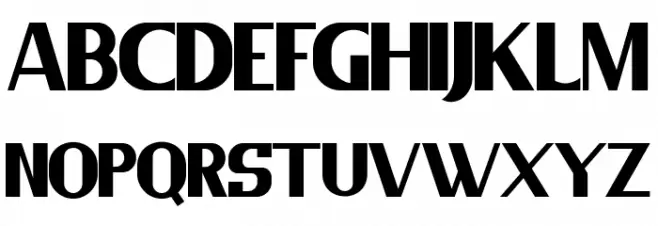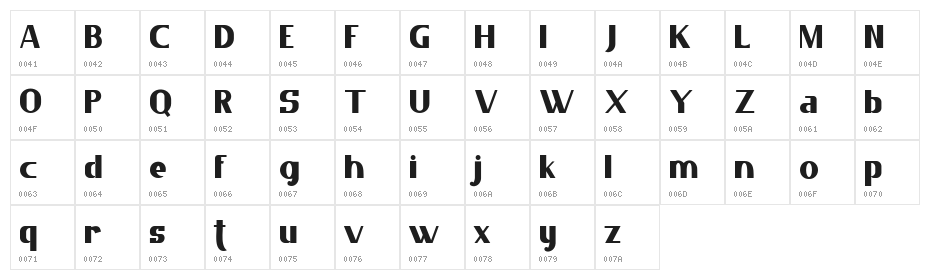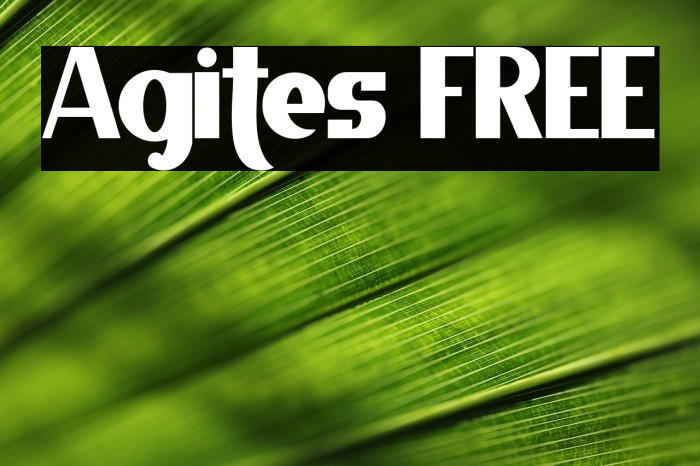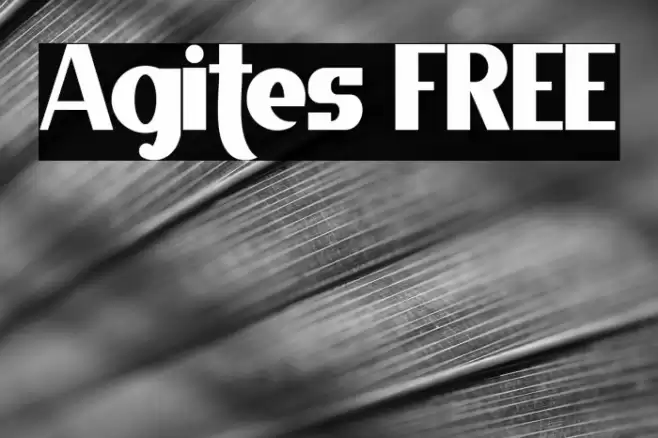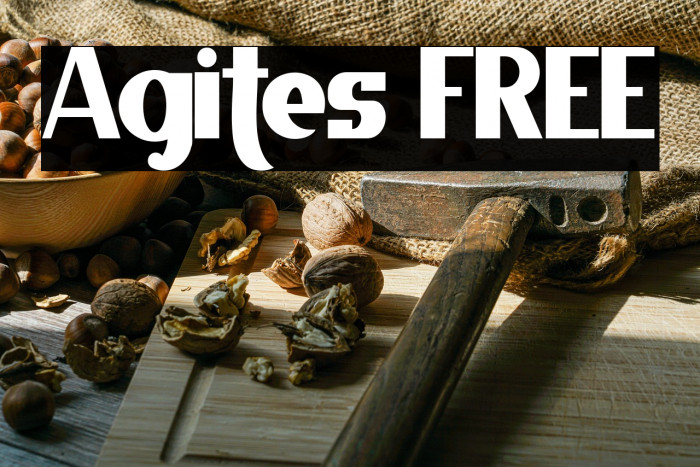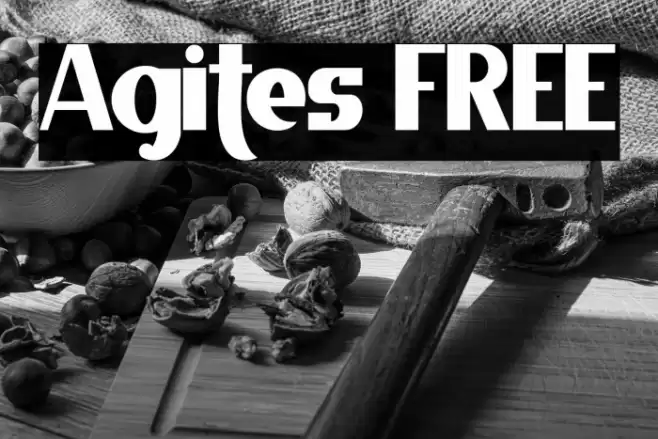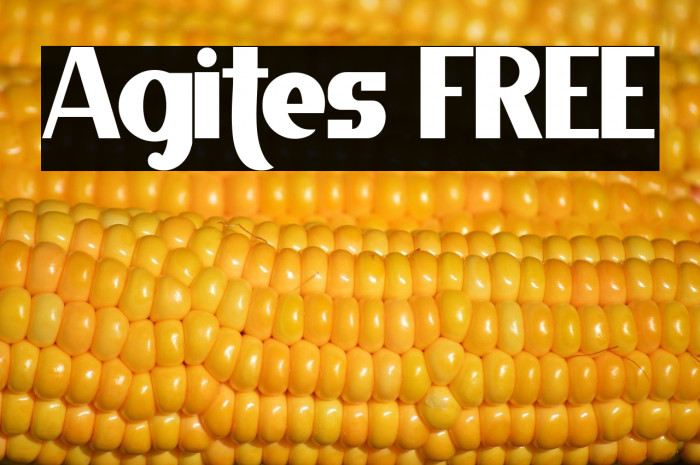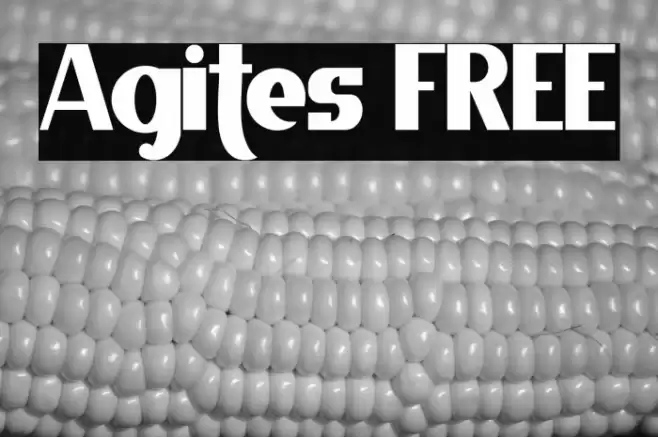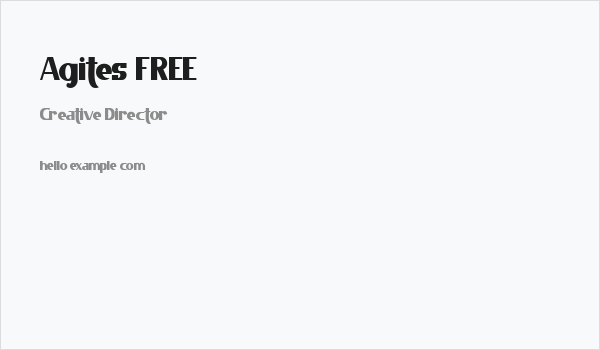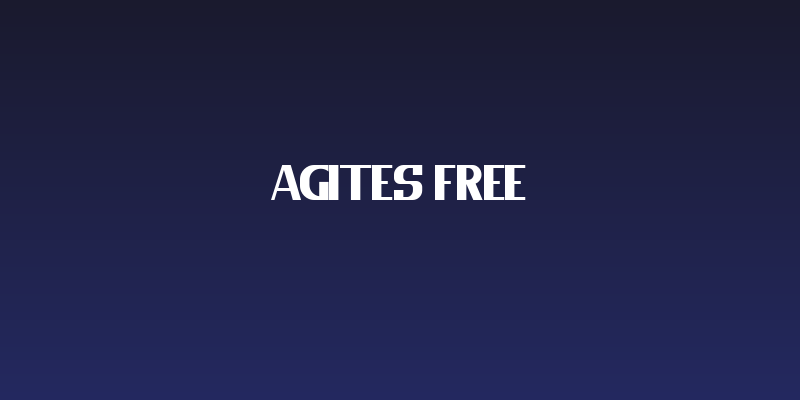
Agites FREE Font
Agites FREE Description
This font exhibits a bold and modern style with a unique geometric flair. The uppercase letters are characterized by sharp angles and clean lines, creating a sense of strength and stability. The lowercase letters maintain a consistent weight, with some characters featuring distinctive curves that add a touch of elegance. The numbers are clear and legible, matching the overall boldness of the alphabet. Special characters are designed to complement the font's geometric nature, ensuring a cohesive look across all text elements. This font's strong presence makes it ideal for impactful designs.
| Proposed Projects | Ideal for branding, headlines, posters, and any design requiring a bold statement. |